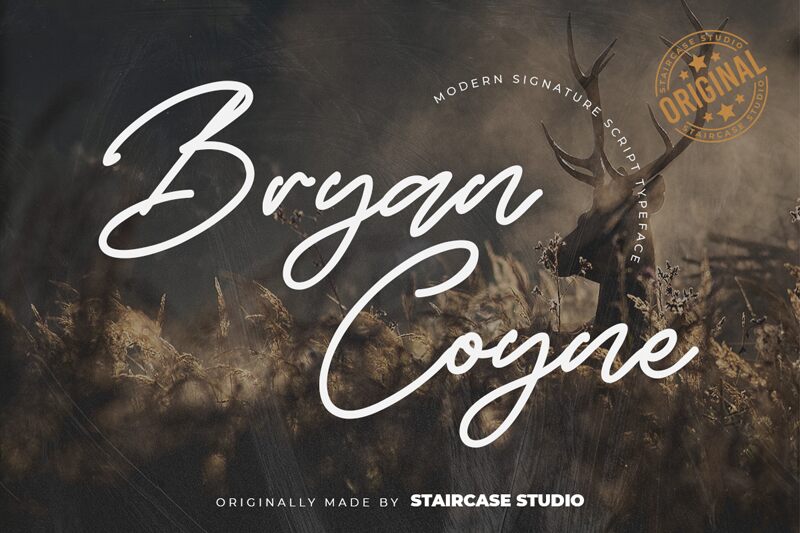
Bryan Coyne is a modern signature font designed by Staircase Studio. Its light weight and sleek style make it perfect for projects requiring elegance and refinement, such as wedding invitations, luxury branding, and high-end product packaging. This font typeface is sure to add a touch of sophistication to any design project while remaining legible and visually appealing. With its unique flair, Bryan Coyne is an excellent choice for those searching for a font that stands out from the rest. Try it today and elevate your designs to the next level of creativity!